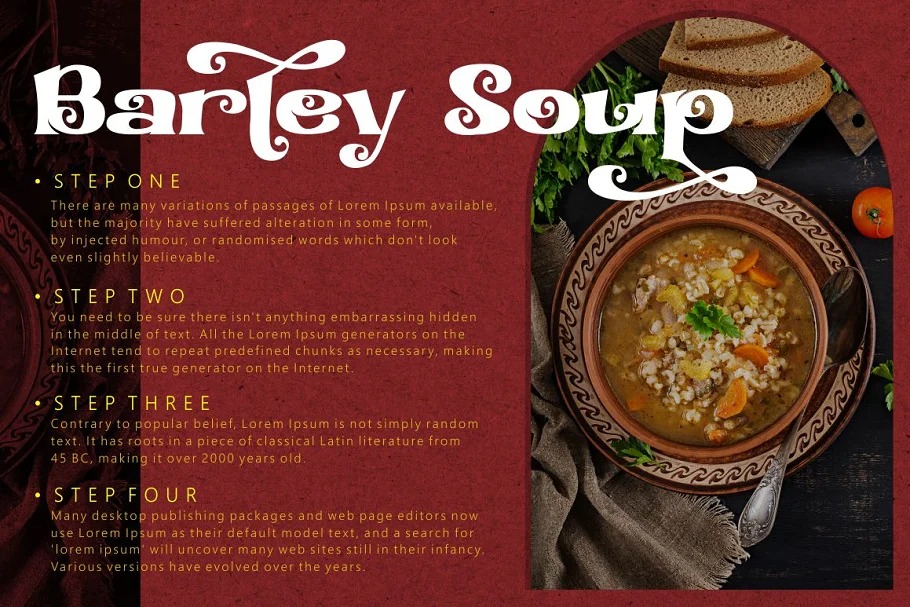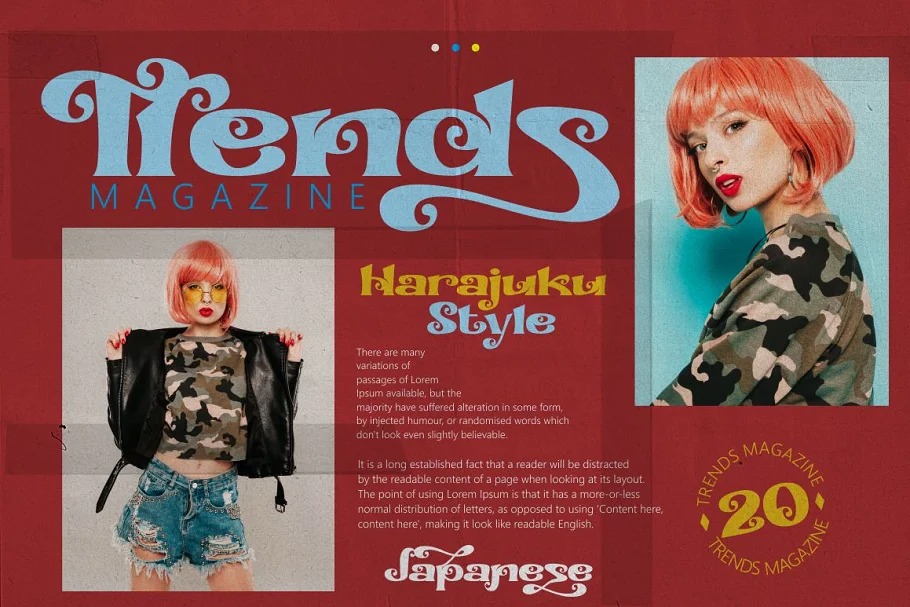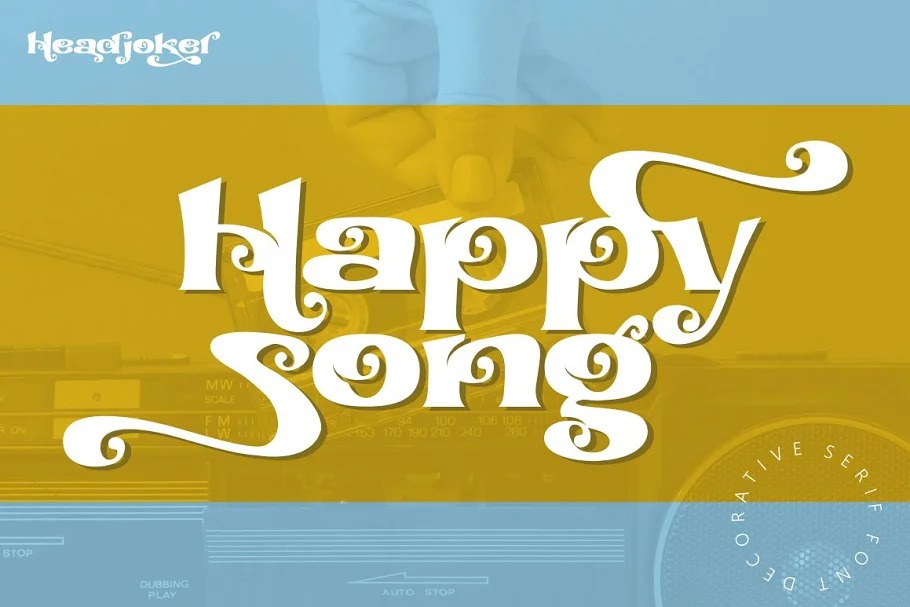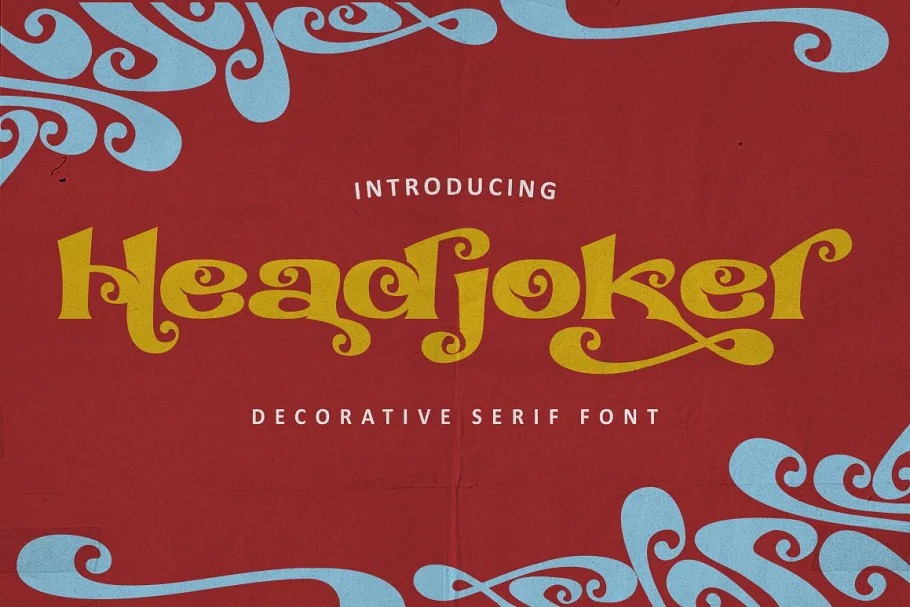
Headjoker Display Font
It’s a typeface that will make your projects elevate. An excellent choice to add the right amount of retro touch. Headjoker is very versatile font that works great in large and small sizes. Come with open type feature with a lot of alternates, its help you to make great lettering. Headjoker best uses for heading headlines, cover, poster, logos, quotes, product packaging, merchandise, social media & greeting cards and many more.